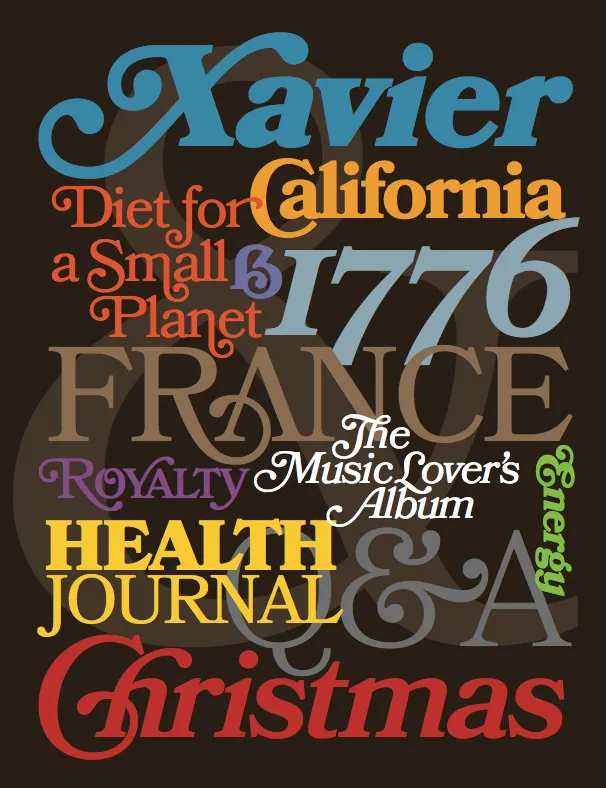
For the last four years, I’ve been working on a revival of the classic ATF Bookman Oldstyle and the Bookmans of the 1960s. But it’s not a slavish replica. It’s my own idea of what Bookman could be. It’s the revival I always wished someone would do.
I thought about doing a cursive italic, like others have tried, but in the end I decided that the original slanted roman should be preserved. Bookman has always been known for its swashes, so I also made a superset of the dozens of swash characters that have been added to Bookman over the years.
I wanted to go beyond its past and make something new. I added things that Bookman never had like small caps, old style figures, alternate characters, ligatures, stylistic sets, extensive language support, and more.
The family is composed of five weights—Light, Regular, Semibold, Bold, and Black, plus italics.
It’s my love letter to the classic Bookman: Bookmania.
One of my favorite bloggers, Jason Kottke, posted an item and link today about a story on the NPR site about “the longest word in the English language”.
This piqued my interest. When I was a kid I used to watch the Mike Douglas Show every afternoon after school. One time he had some sort of word expert on the show who revealed what the longest word was. I was impressed and taught myself to pronounce it correctly (still can).
Was it still the longest word? Sure enough, it was in the article:
Well… not the longest word anymore, if it ever was.
But then I noticed that all the “long words” in the article were set in one of my fonts—Felt Tip Woman! (My partner, Pat, whose handwriting was the model for Felt Tip Woman, loves words and language, not to mention NPR, and thought this was pretty cool, too.)
So I memorized a word that’s not really as special as I thought it was. On the plus side, NPR is using one of my fonts, so I’m happy anyway.
If you pay close attention, you may notice two additions to the list of fonts over on my site: Diane Script and Filmotype Honey. I’ve been meaning to add these for a while (a long while in the case of Diane Script).
Diane Script (and Diane Script Première) were released in late 2008 through FontHaus, who commissioned me to digitize them. More about Diane here.
Filmotype Honey is my latest contribution to the Filmotype project and was released on the Font Bros site back in February.
I’m pleased to announce the release of Anonymous Pro Version 1.001. This version contains mostly user-requested tweaks and fixes, including:
- The comma and the comma part of the semicolon have been moved down about a pixel (depending on the size) to improve clarity.
- The design of the “quotesinglbase” and “quotedblbase” match the look of the “straight” quotes (the earlier designs didn’t match anything).
- The periods and other “dot” punctuation elements are a bit bigger in some bitmap sizes/styles.
- Fixed the hinting problem that caused the tops of the caps to vary in height a certain sizes on Windows (hard to figure out the reason, but easy to fix once I knew).
- Corrected the 13ppem bitmap glyph for the Greek character “omicrontonos” (which, embarrassingly, sported an umlaut).
Small note to Windows users: I haven’t updated the sample that shows what Anonymous Pro looks like in text sizes on Windows with ClearType enabled. It looks better than that now. I’ll update it soon.